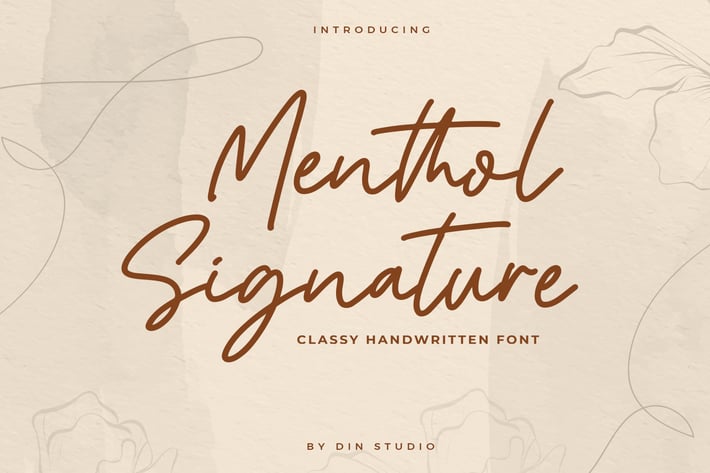
Mentol Signature - Monoline Font
Menthol signature is a classy monoline font. Made for any professional project branding. Every letter has a unique and beautiful touch.
- Beautiful Ligatures
- Numerals and Punctuation